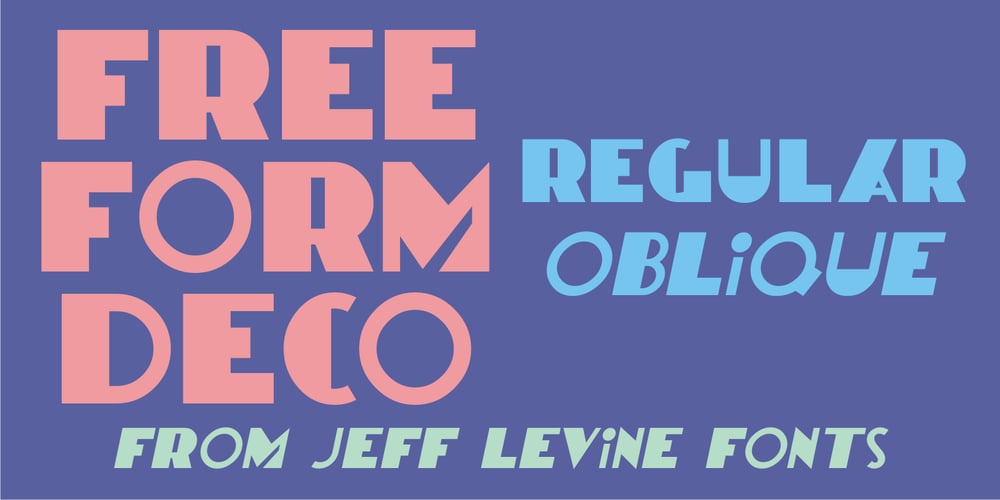
Free Form Deco
Free Form Deco font
Free Form Deco Font Family was designed by Jeff Levine and published by Jeff Levine. Free Form Deco contains 2 styles and family package options. Toward the end of the 1920s, Art Deco influences were starting to creep into modern design. The hand lettered title on the cover of the1928 sheet music for “Fascinatin’ Vamp” not only embraced the new Deco movement, but sent it on a wild typographic ride. Letters of mixed thicknesses and stylings made up the two word title, and this unusual group of letter shapes became the inspiration for Free Form Deco JNL, which is available in both regular and oblique versions.